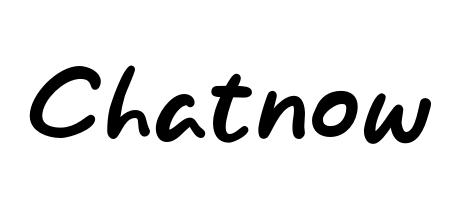
Chatnow
Chatnow: A playful script font, brimming with casual charm. Its slightly rounded letters and gentle curves evoke a sense of friendly conversation, perfect for social media, messaging apps, or anything needing a relaxed, approachable vibe. The slightly uneven strokes add a touch of handmade authenticity.